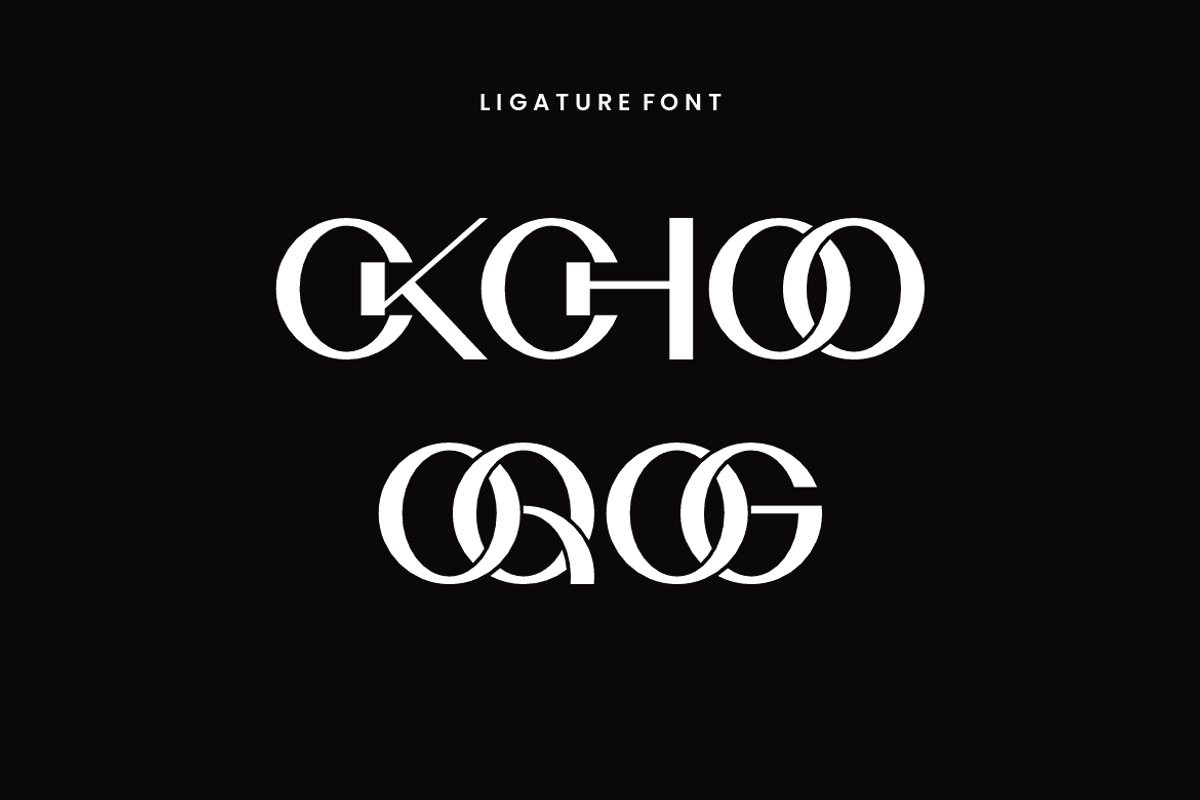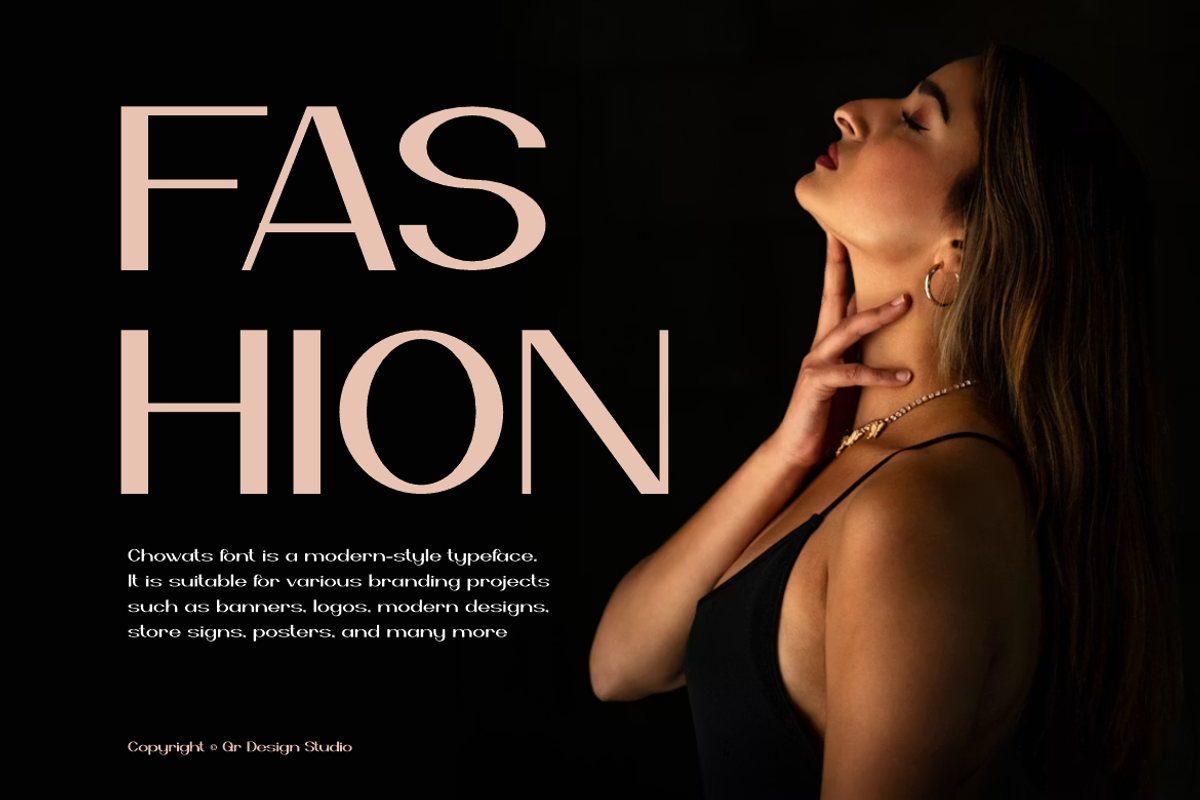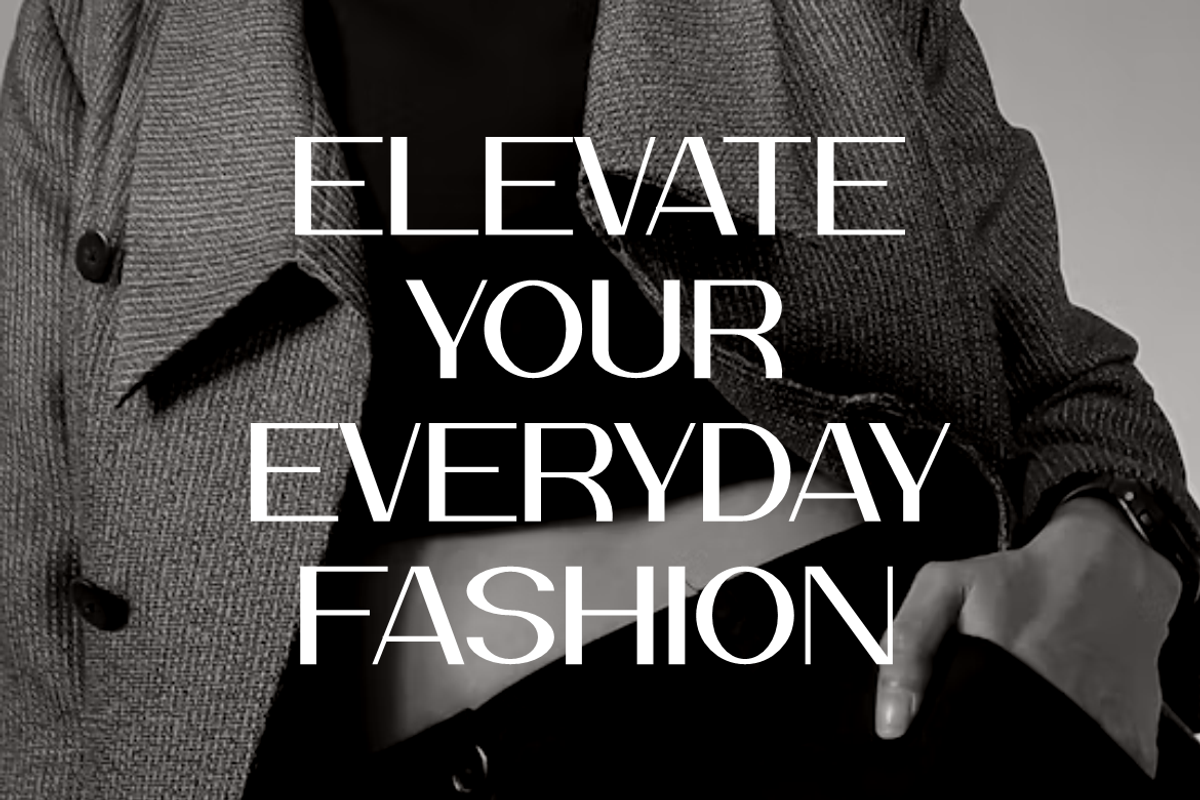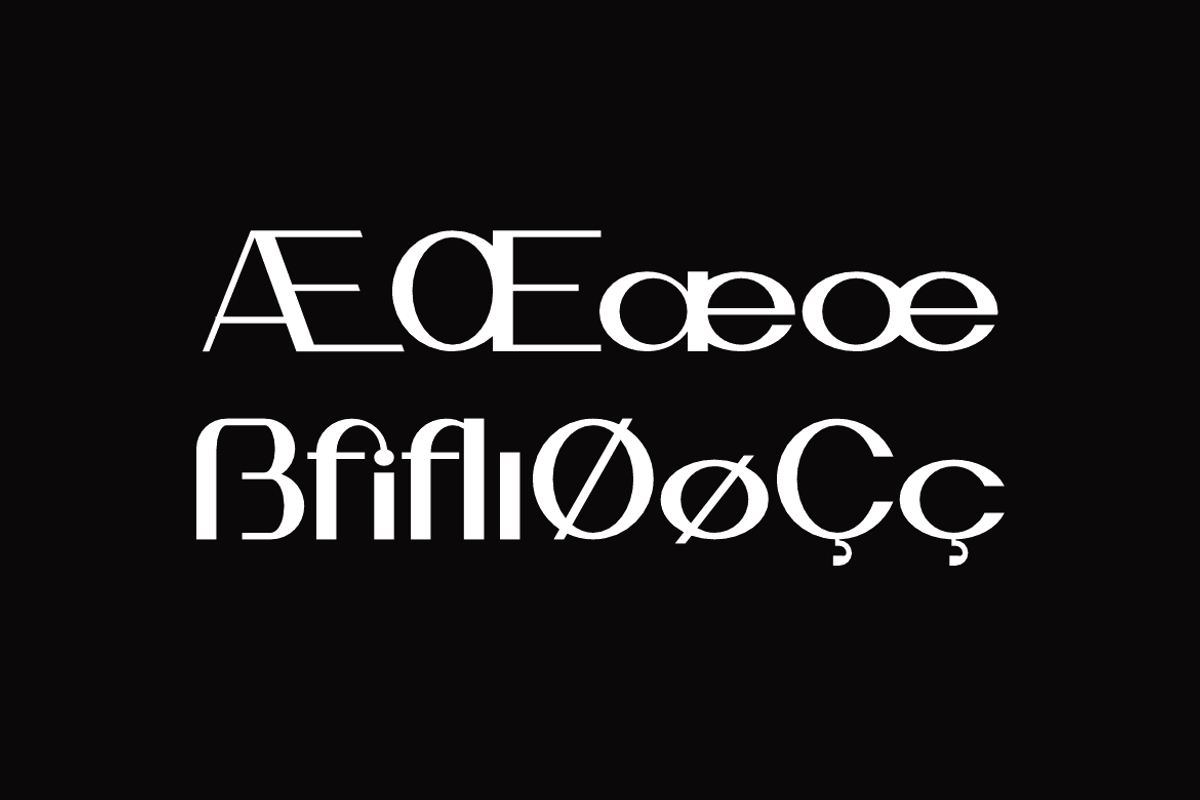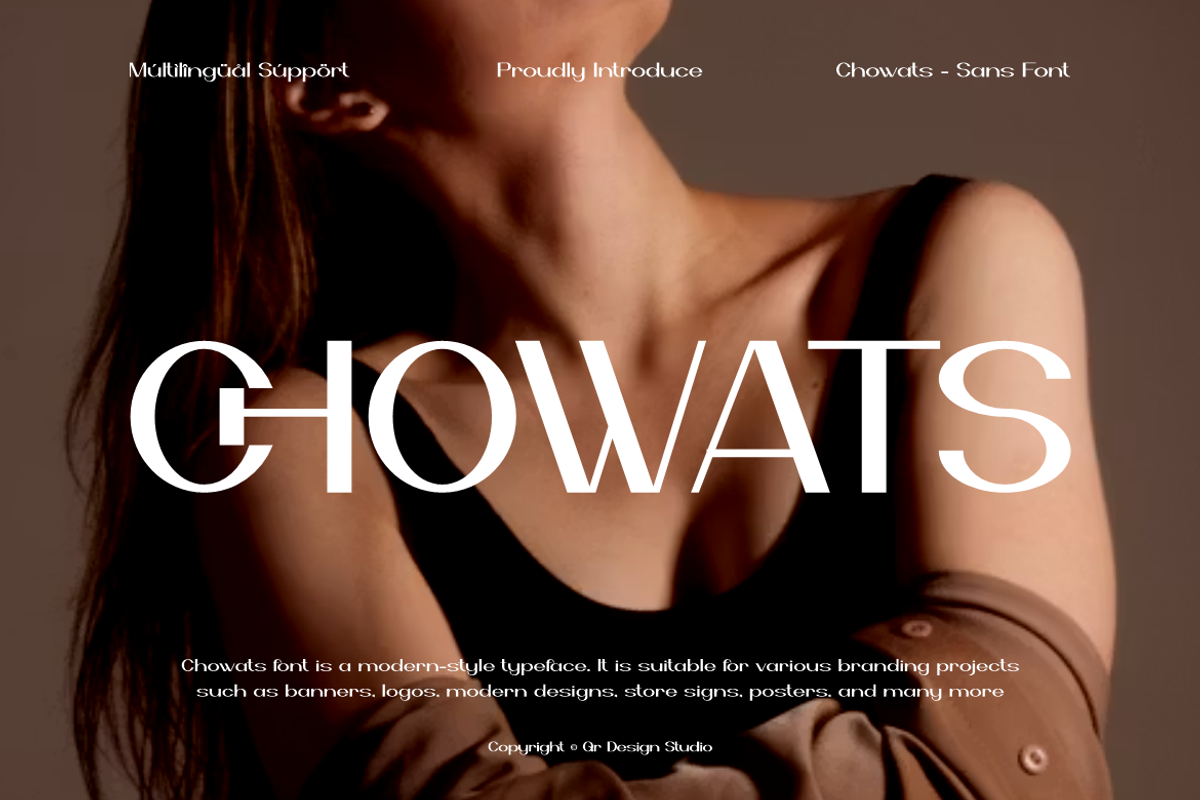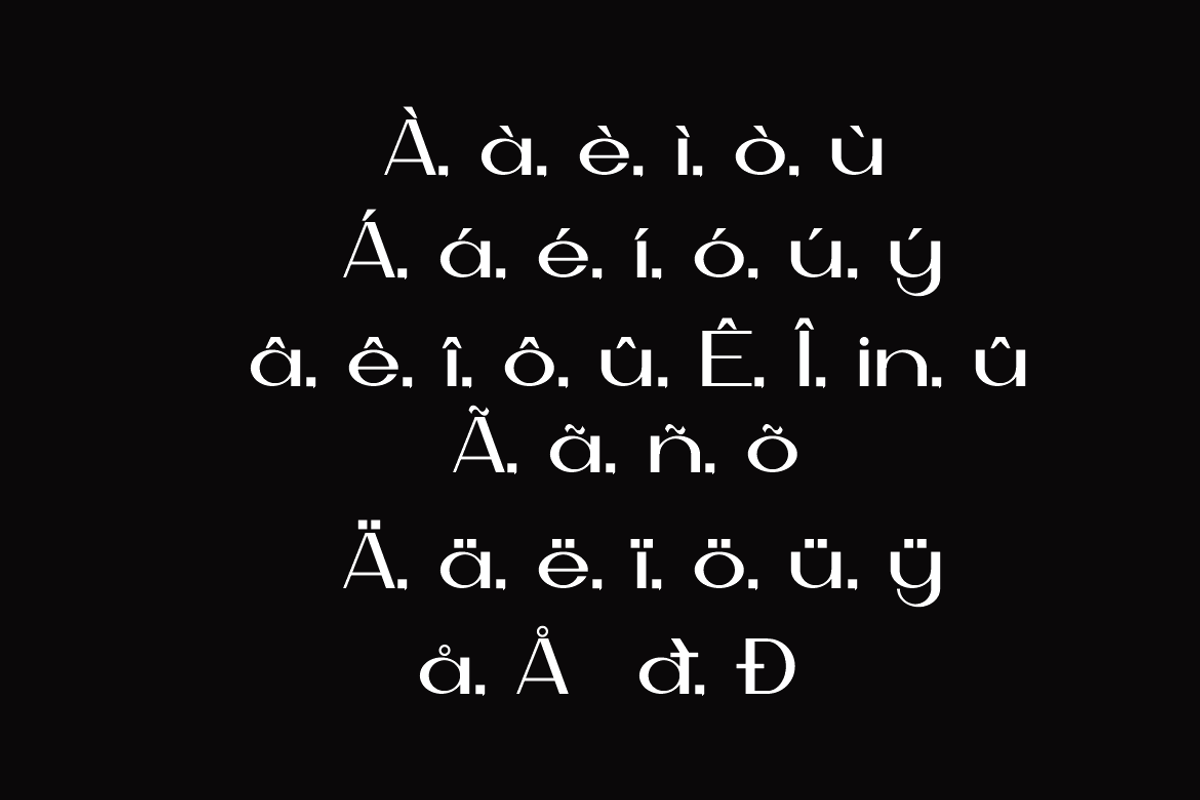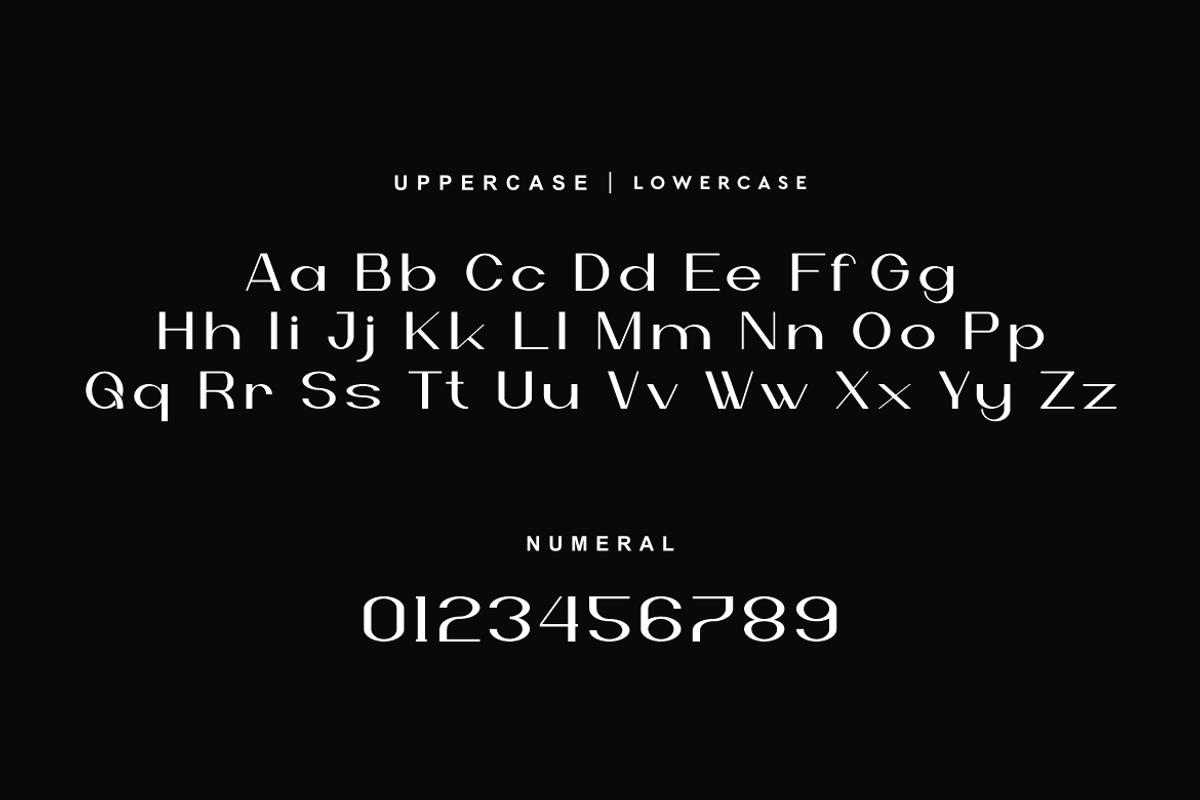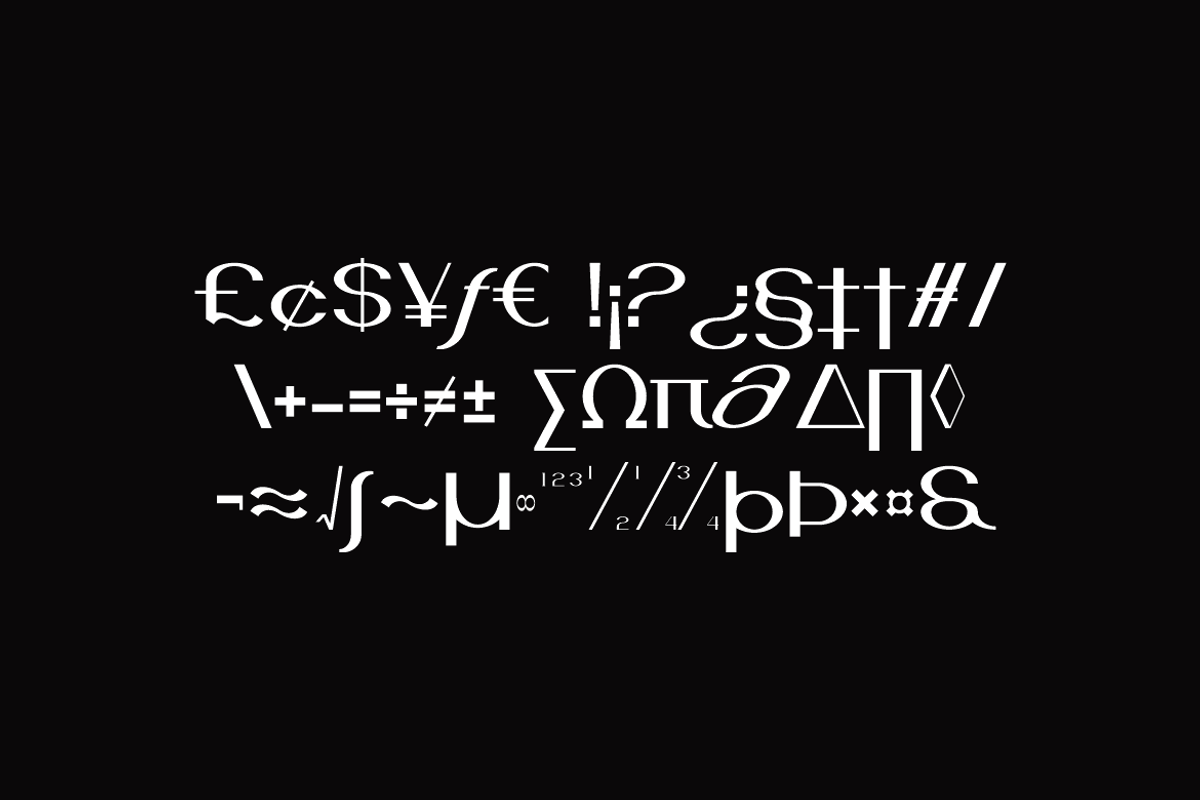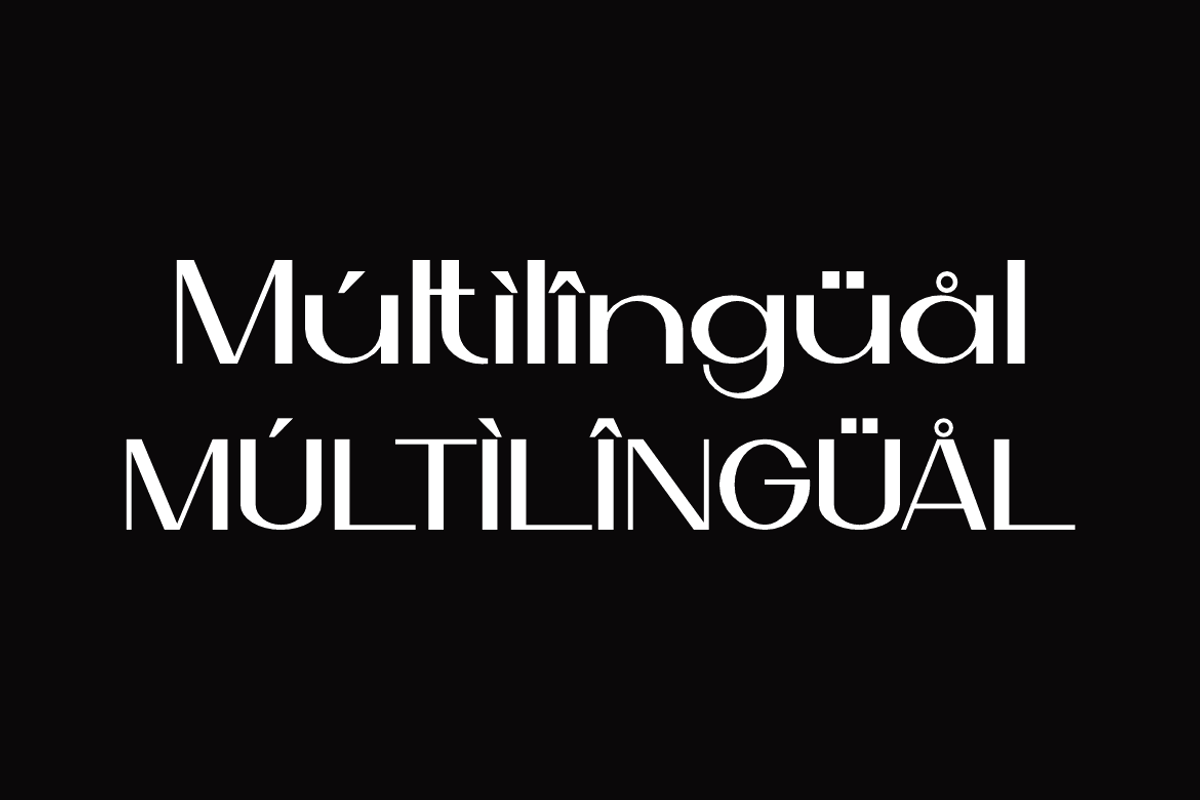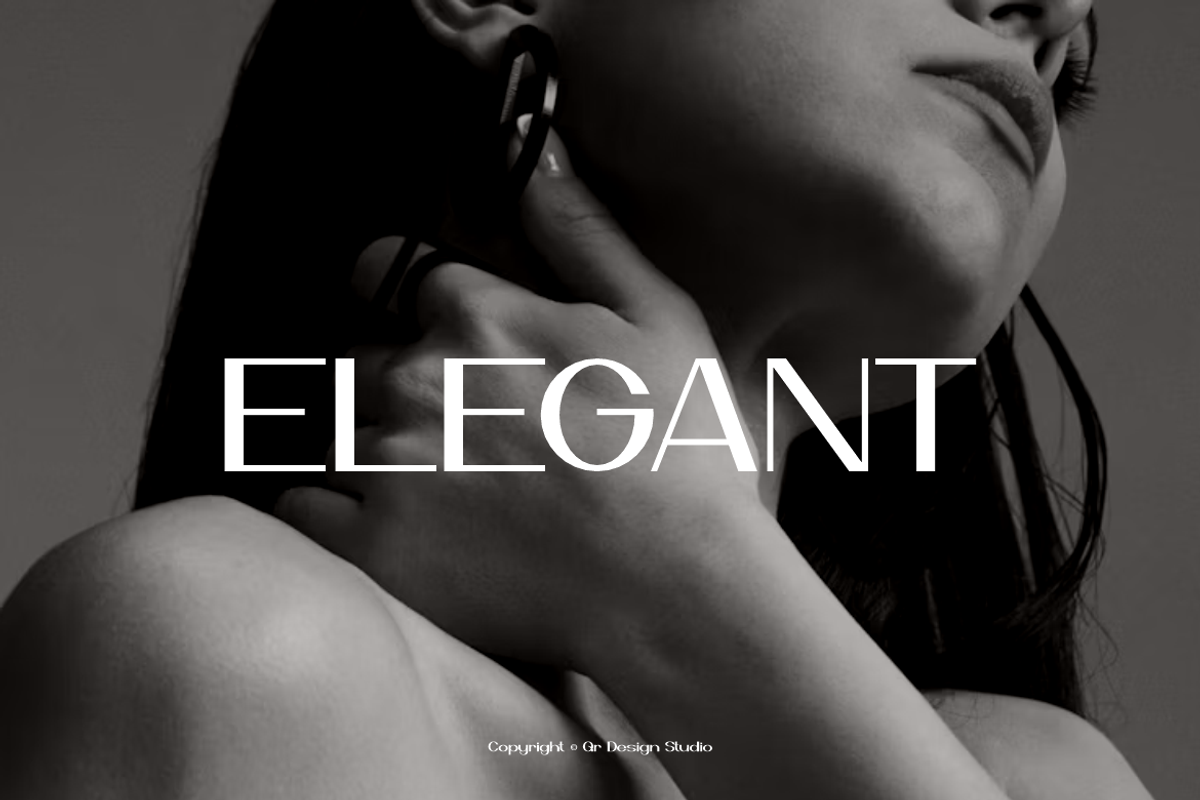
Chowats - Modern Fashion Font
Chowats Font is a modern and authentic display typeface.
It’s perfect for various branding projects such as logos, modern designs,
and more. This font stands out beautifully in a wide range of contexts.